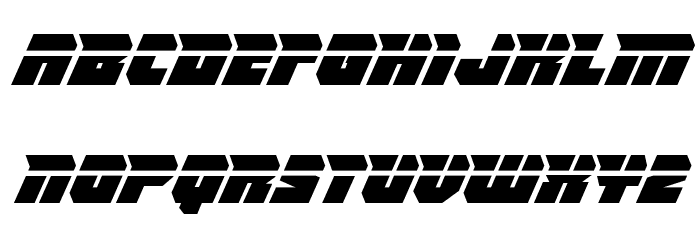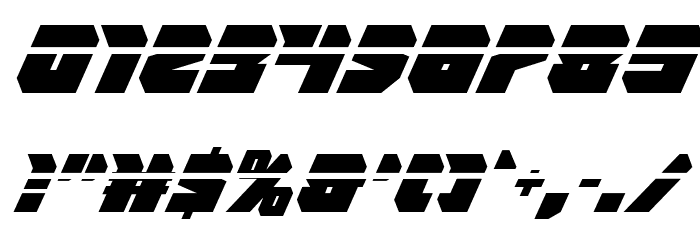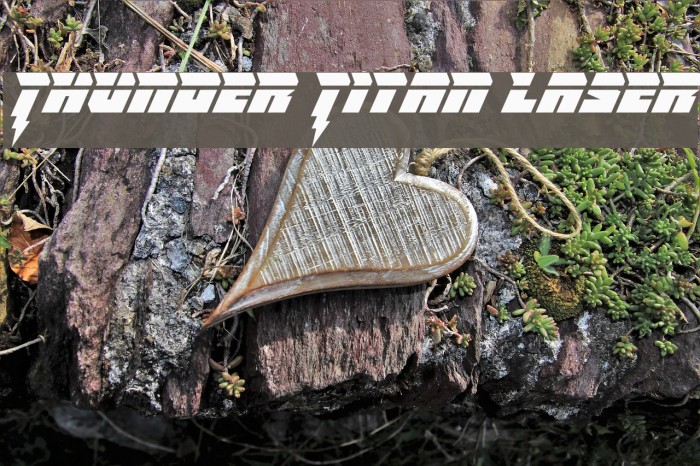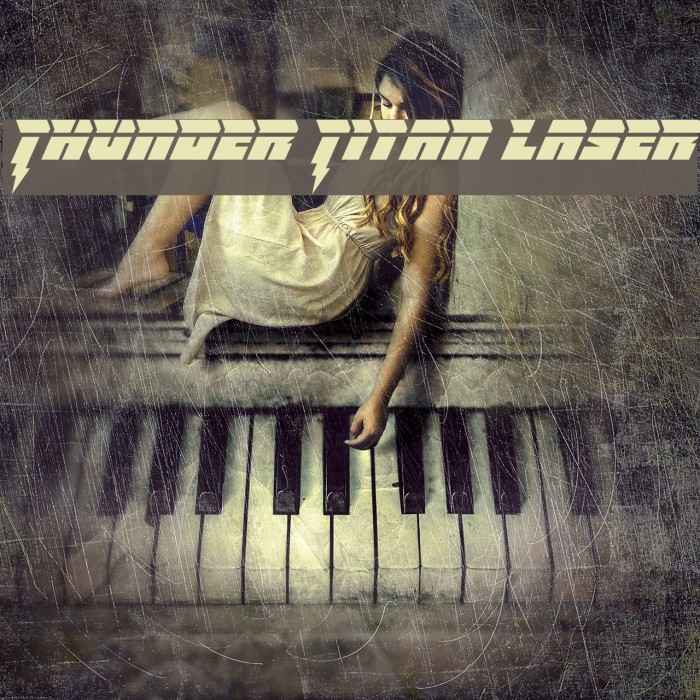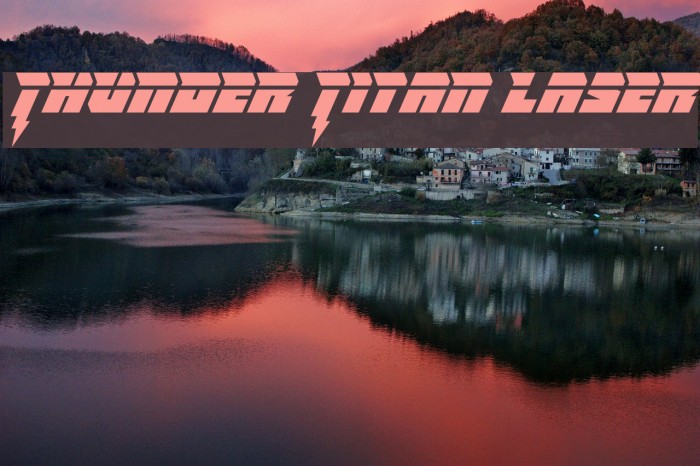
Thunder Titan Laser Font
This font features a bold and dynamic style, characterized by sharp, angular edges and a distinct lightning bolt motif integrated into each character. The uppercase letters are particularly striking, with a futuristic and aggressive appearance that suggests movement and power. The lowercase letters maintain the same boldness, ensuring consistency across the typeface. Numbers and special characters are designed with the same angular and edgy aesthetic, making them stand out. The overall design is highly decorative, making it ideal for attention-grabbing headlines or logos.
A bold, angular font with a lightning bolt motif, perfect for dynamic and futuristic designs.
- Proposed Projects: Ideal for use in branding for sports teams, energy drinks, or tech startups. It can also be used in poster designs, video game titles, or any project that requires a bold, impactful visual statement.
- Overall Style: Futuristic, Dynamic